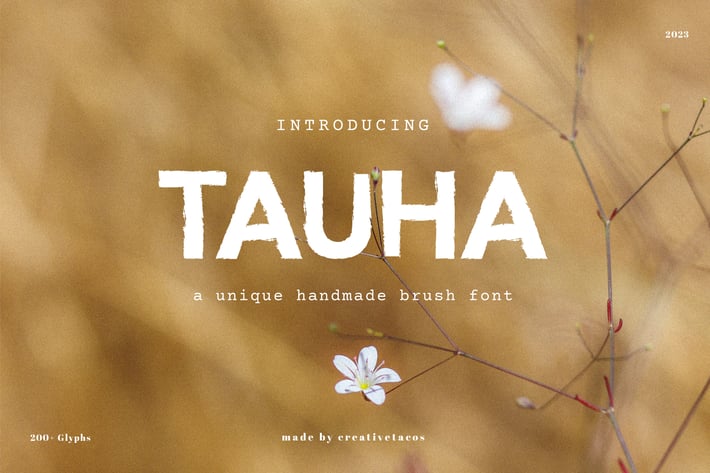
Tauha Handmade Brush Font
Introducing Tauha a creative, unique and rough brush font that will help you visualize your forthcoming projects! It contains uppercase, lowercase, number, punctuation, symbols and supports multilingualism. Tauha font is great for various projects like packaging, presentations, logo, headlines, lettering, posters, branding, quotes, titles, magazine headings, web layouts, advertising, invitations, packaging design, books, and nearly any creative design.
Tauha Font Features:
- Uppercase Letters
- Lowercase Letters
- Support Multilingual